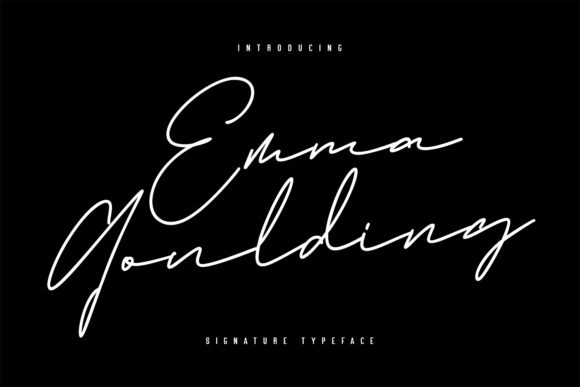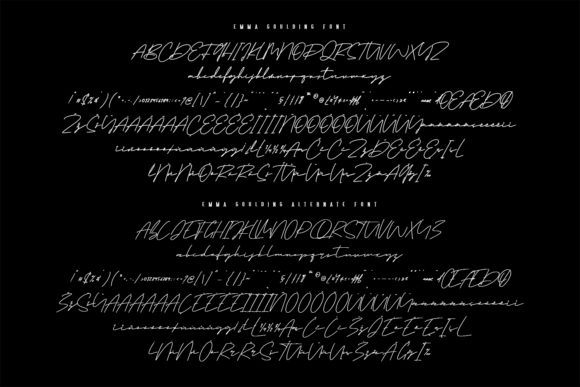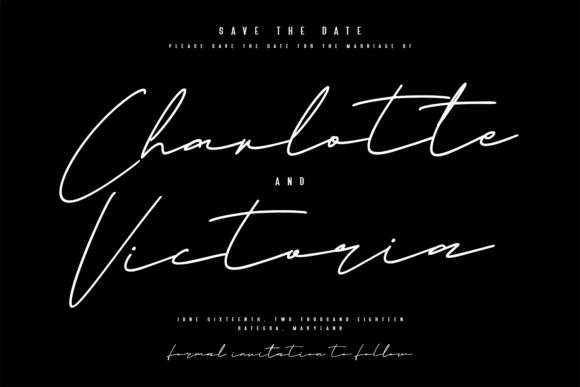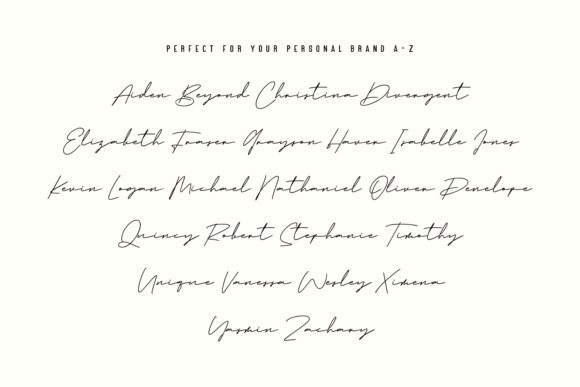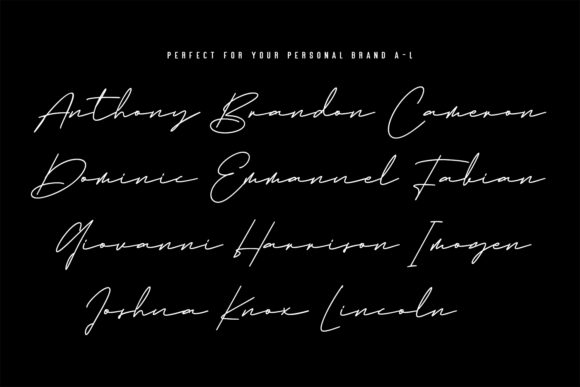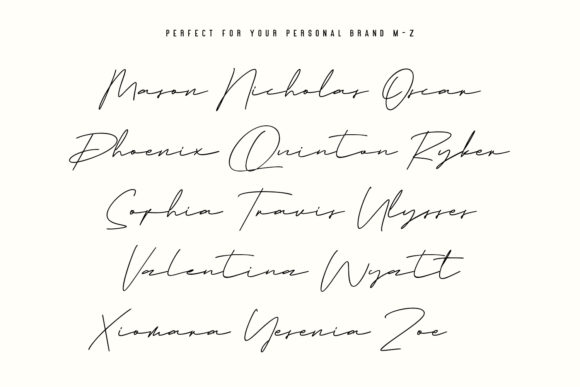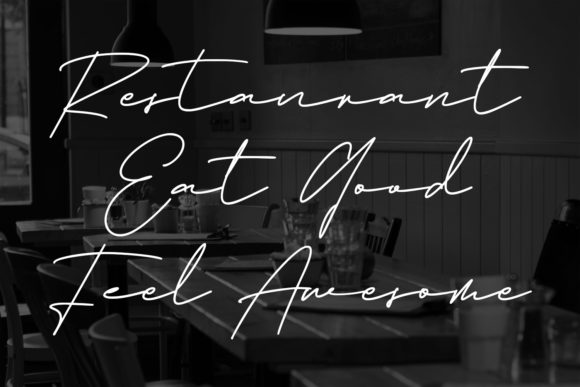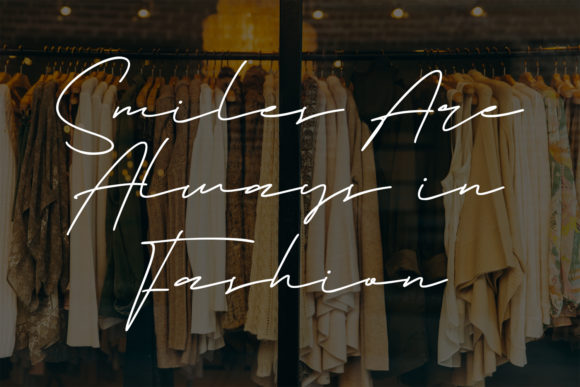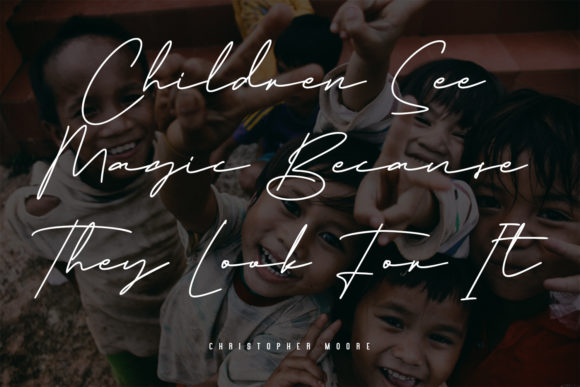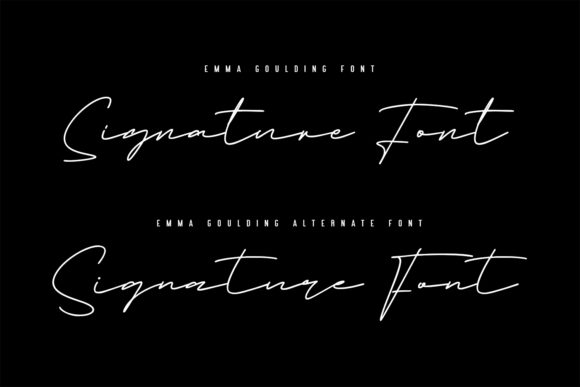
Emma Goulding Font
About Emma Goulding Font
Emma Goulding is a flowing handwritten font, described by an elegant touch, perfect for your favorite projects. Fall in love with its incredibly distinct and timeless style and use it to create spectacular designs!